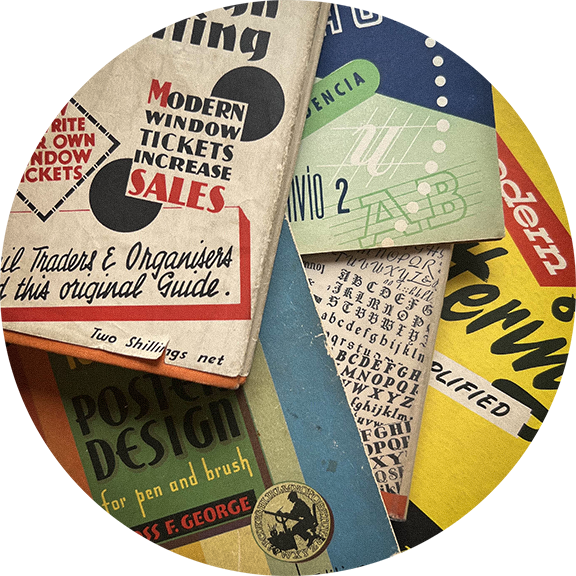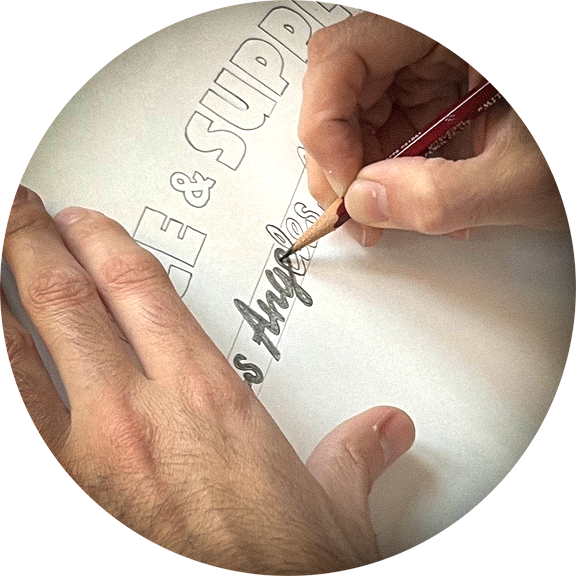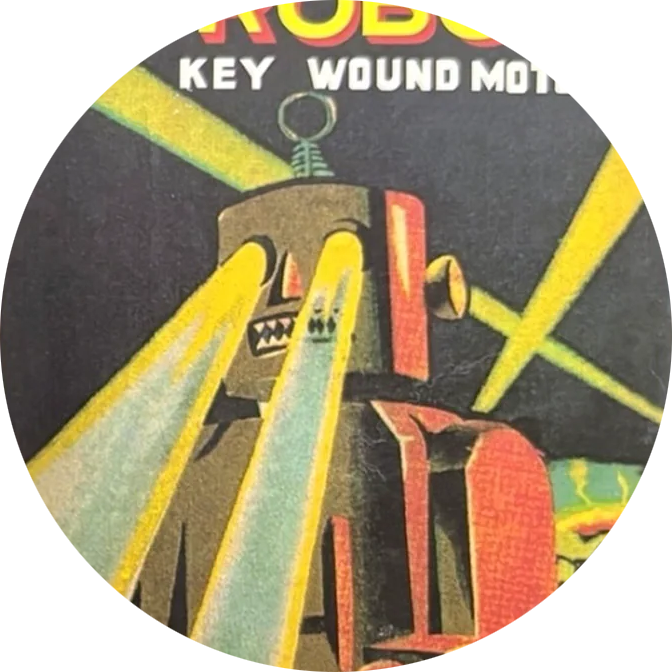
Our Process
The Practical Lettering way. How we design and develop our typefaces.
We are inspired by hand-lettering from the golden age of commercial art.
Every typeface we design begins as hand-lettering - sketched and inked before being digitized.
Ephemera Collectors
We love hand-lettering!
Every typeface we design is inspired by hand-lettering from our collection of rare books, prints, matchbooks and vintage ephemera.
For Designers
We design for the grocery store sign artist, the tattooer, the chainstitcher, the sign painter, the letterhead and the graphic designer.
Our typefaces look like they are hand-drawn, because they are! -
By Designers
Our experience is in hand-painted signs, chain stitch embroidery, grocery store lettering and package design.
No AI Graphics
All of our typefaces, vector alphabets and designs are made by hand.
We believe that human imperfection is what makes everything we love about vintage design so special.